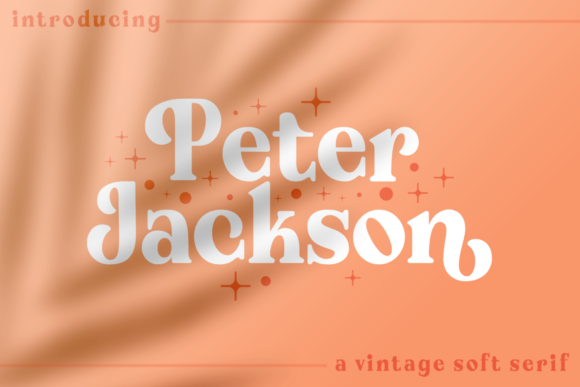
Unleash the Timeless Charm of Your Designs with Peter Jackson Font - The Epitome of Vintage Typography
Embark on a journey through the annals of typography with Peter Jackson, a display font that evokes the allure of a bygone era, carrying the echoes of history and nostalgia. This meticulously crafted font, the brainchild of the talented Dani (7NTypes), will elevate your designs with its inherent strength, confidence, and dynamism, lending an air of sophistication to your headlines and logotype projects.
Peter Jackson's meticulously crafted characters exude an undeniable vintage charm, evoking the elegance of a classic novel or the intrigue of a vintage poster. Each letterform is imbued with a unique personality, as though whispering tales from a forgotten time. Whether you're designing for a fashion magazine, a timeless logo, or an eye-catching poster, Peter Jackson will effortlessly add a touch of intrigue and sophistication.
Immerse yourself in the boundless creative possibilities that Peter Jackson offers. Let your imagination soar as you explore the myriad ways to incorporate this versatile font into your designs. Let it headline your website, inviting visitors to delve into your world with its bold, confident strokes. Create logos that resonate with timeless appeal, leaving an indelible mark on your audience's minds. Unleash your creativity and craft social media posts that capture attention and spark engagement, with Peter Jackson as your trusted typographic companion.
With Peter Jackson, you're not just downloading a font; you're embarking on a journey through time, capturing the essence of a forgotten era and bringing it to life in your designs. Embrace the power of nostalgia and make your designs sing with the timeless beauty of Peter Jackson.